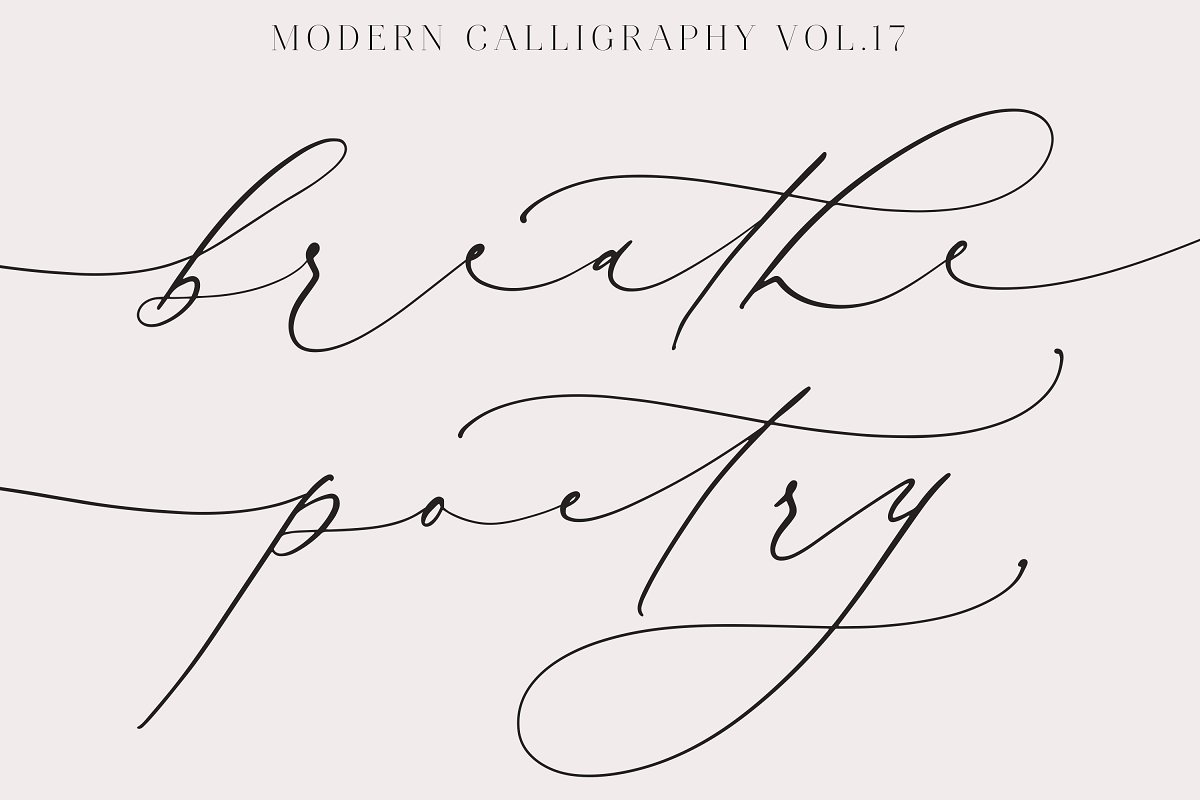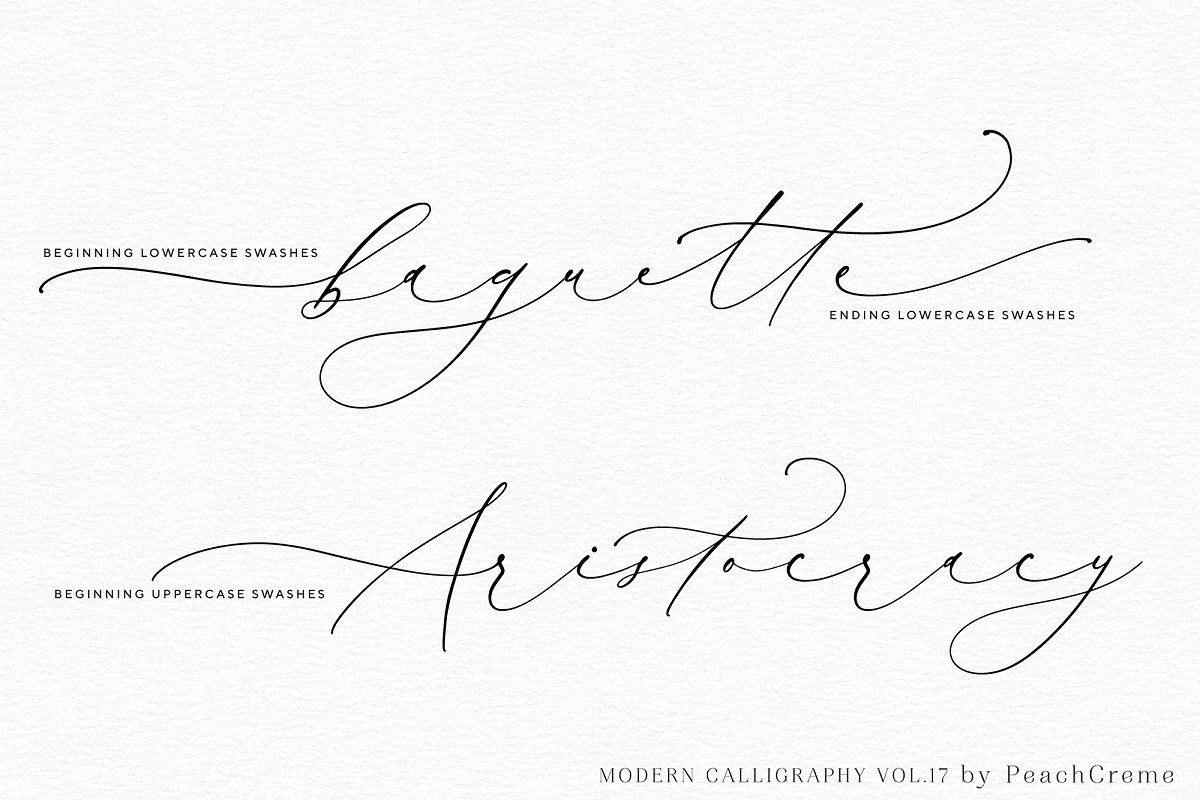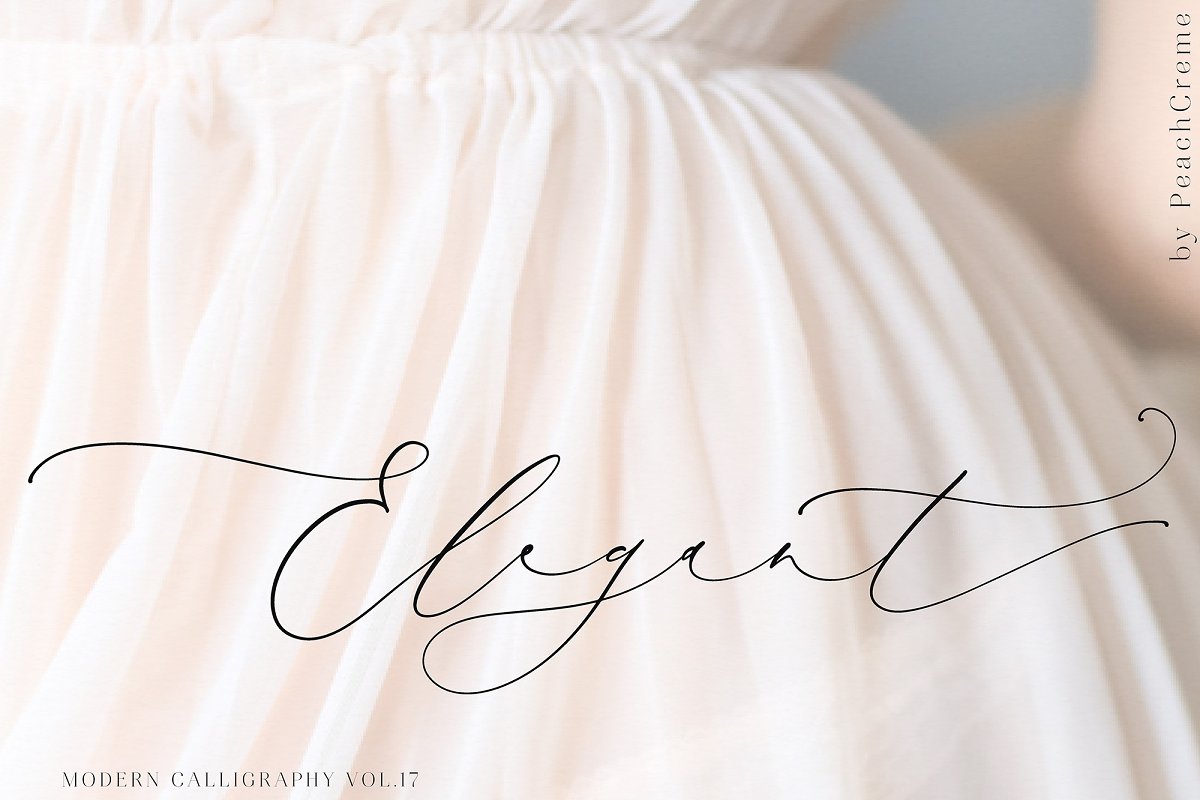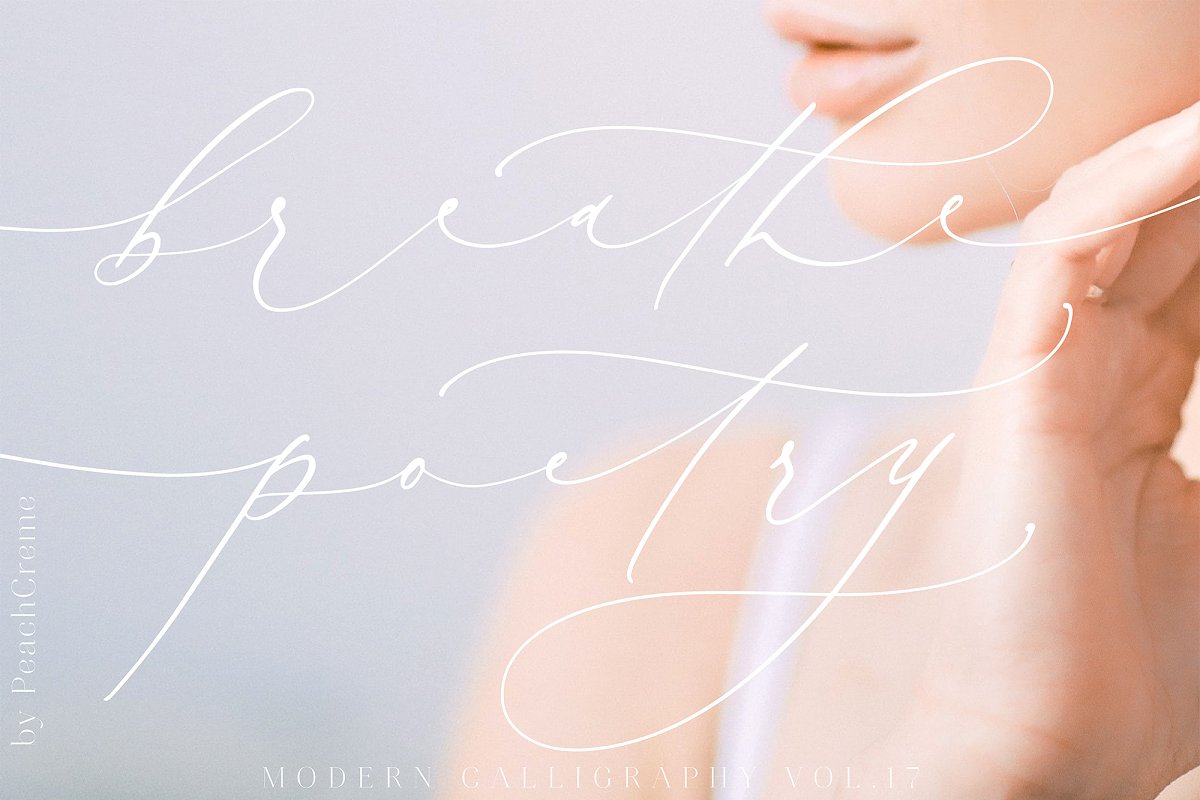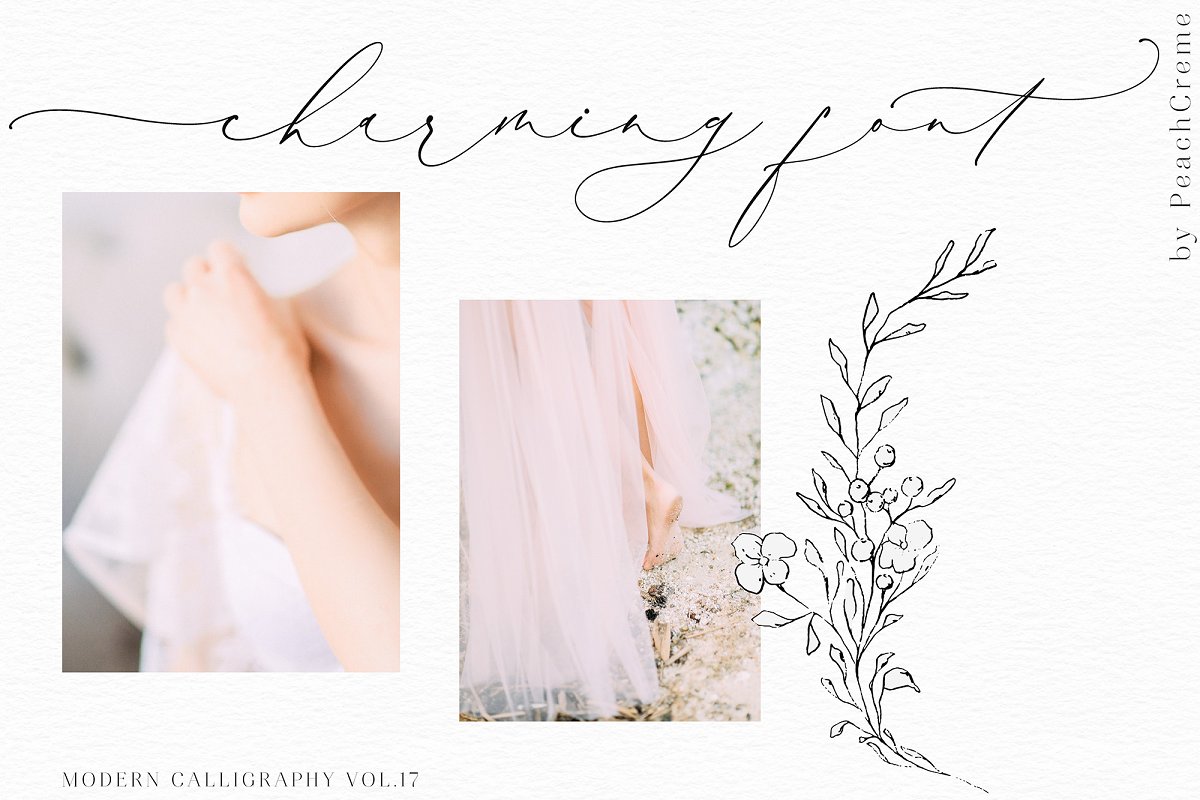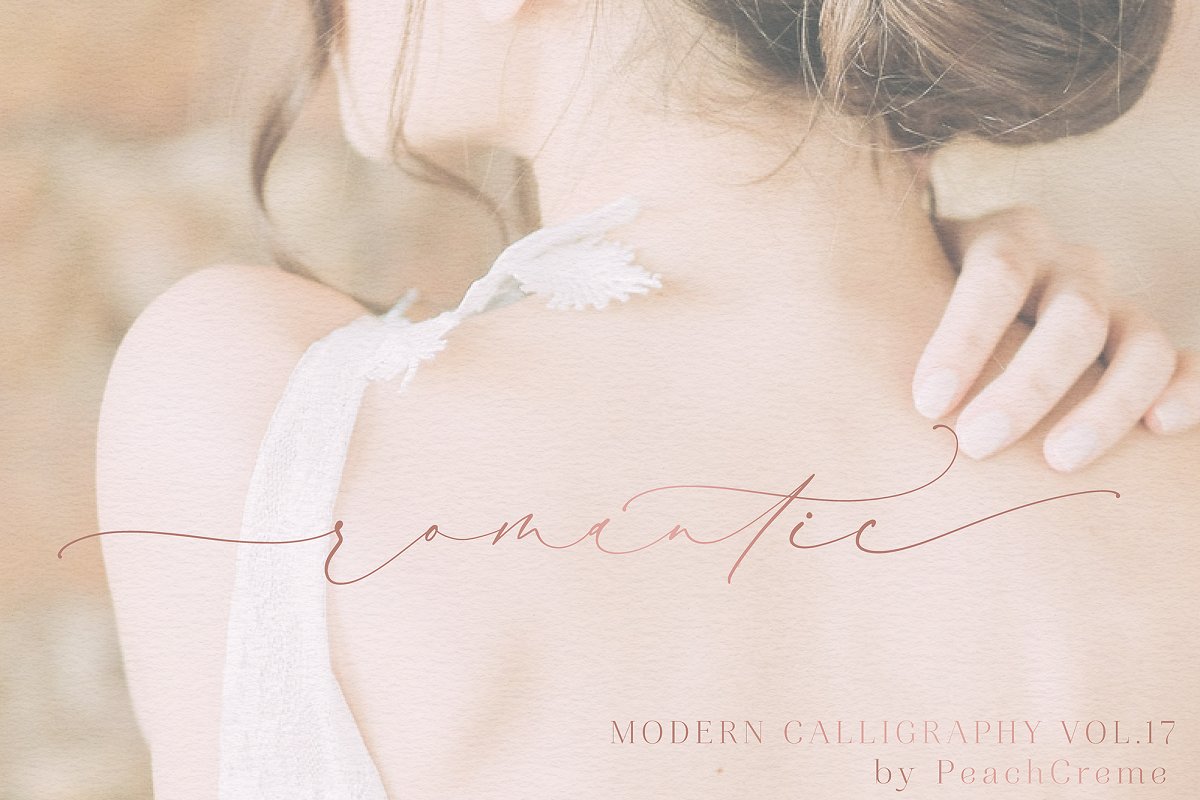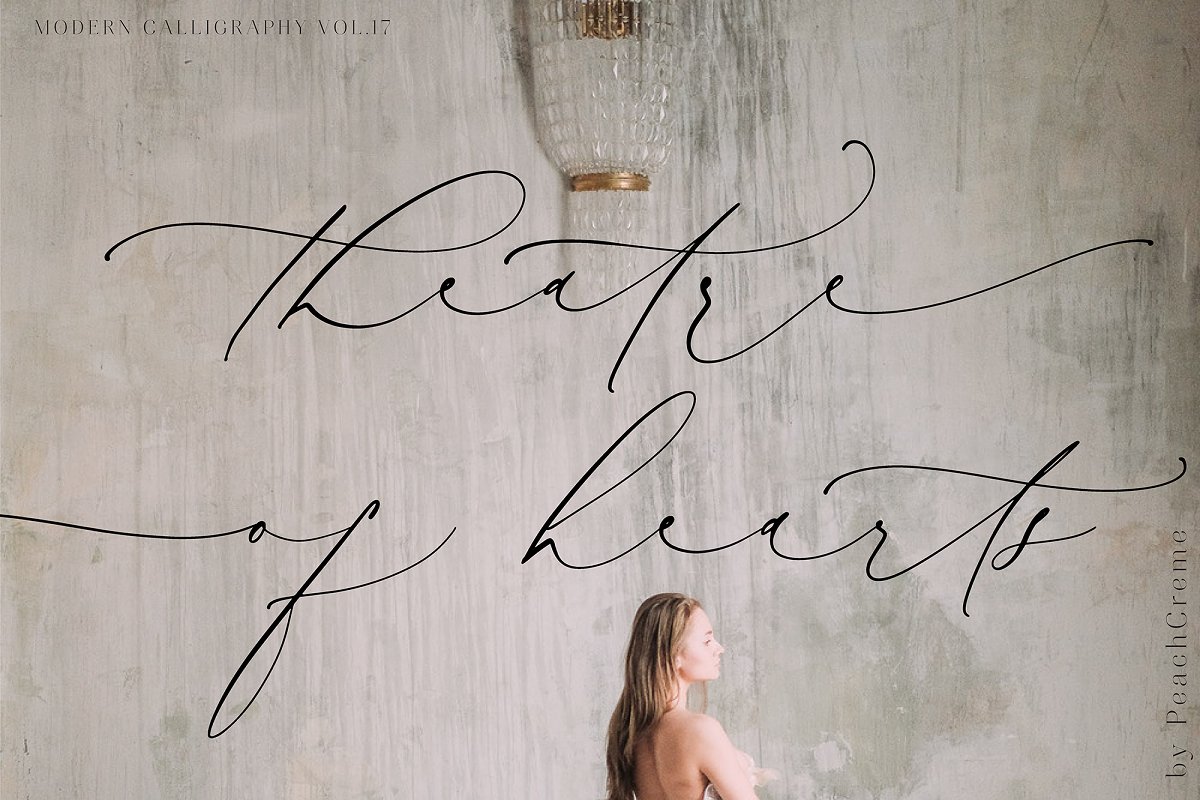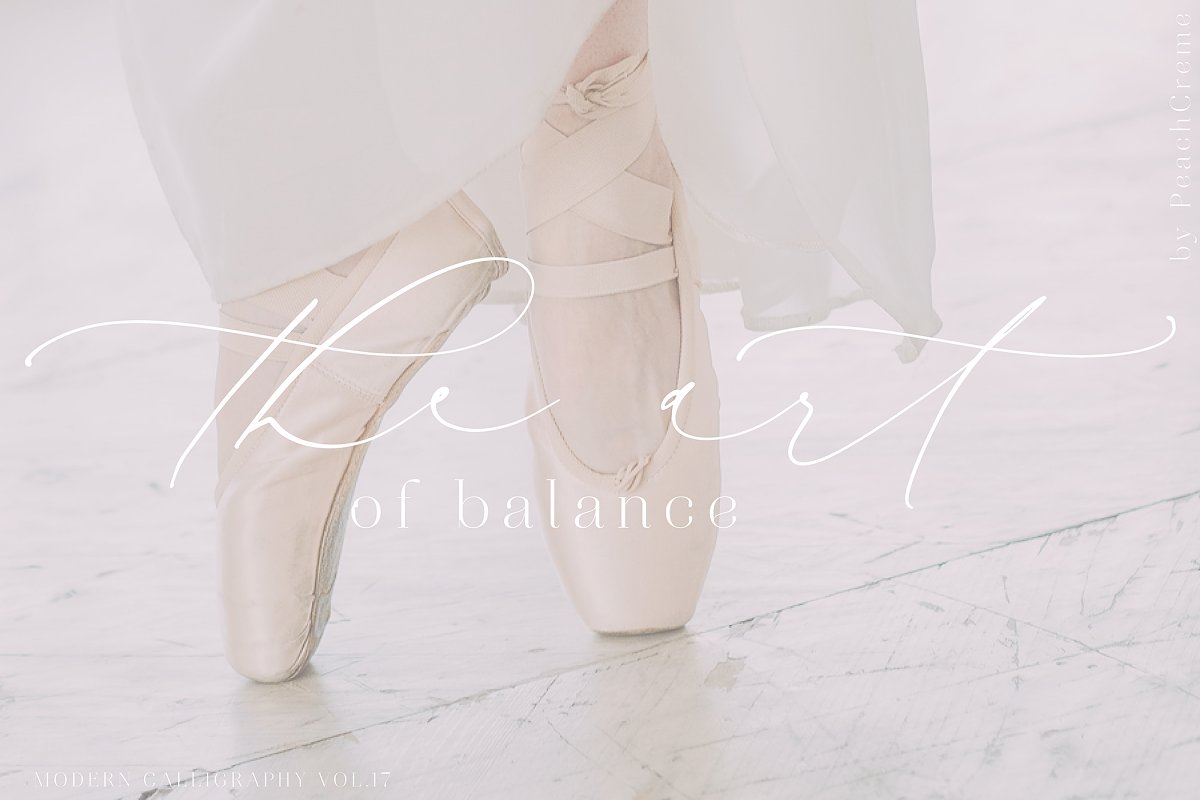
About the Breathe Poetry Modern Calligraphy Font
LUXURY FINE ART TYPOGRAPHY VOL, 17Breathe Poetry is a light, refined, crème de la crème modern calligraphy font with contemporary, sophisticated accents, It is perfect for branding, wedding invites and cards, Breathe Poetry includes full set of gorgeous uppercase and lowercase letters, numerals, a large range of punctuation and ligatures, All lowercase letters include beginning and ending swashes, giving realistic hand-lettered style